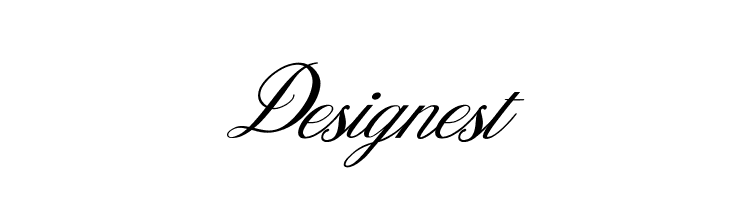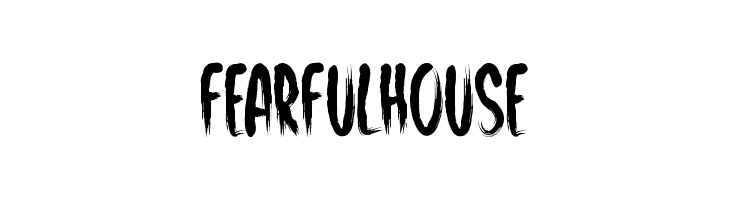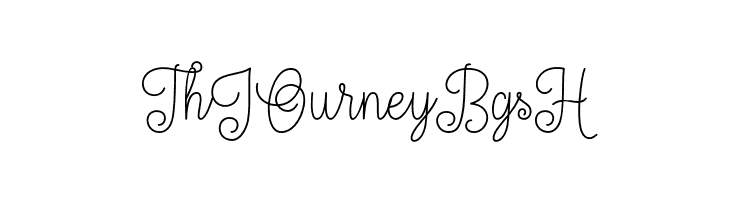
A bold, eerie font with jagged, dripping edges perfect for horror themes.
An elegant script font with flowing cursive style and intricate swashes.
A dynamic and elegant script font with flowing, cursive letterforms.
A bold, italicized font with a gradient line effect for a modern, dynamic look.
A bold, slanted font with sharp angles and a dynamic, modern style.
Graffiti-inspired, bold and dynamic font.
A bold, decorative font with a shadow effect and cursive connections.
A dynamic and elegant script font with flowing cursive letterforms.
A bold, playful handwritten font with dynamic strokes.
A bold, energetic handwritten font with dynamic strokes and a brush-like appearance.